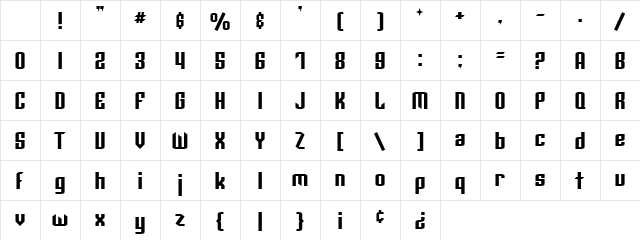
Complete Archery Black Rounded Regular glyph index. Displaying only characters natively supported by Archery Black Rounded Regular font.
Archery Black Rounded softens its letterforms with rounded terminals, giving it an approachable, friendly quality that works well in consumer-facing and digital contexts.
Font Pairing: Pairs well with a rounded or humanist sans for body copy, maintaining the friendly tone without relying on Archery Black Rounded to carry extended reading.
Pro Tip: Use Archery Black Rounded for UI elements, app interfaces, and anywhere a friendly, approachable tone needs to be maintained without sacrificing clarity.